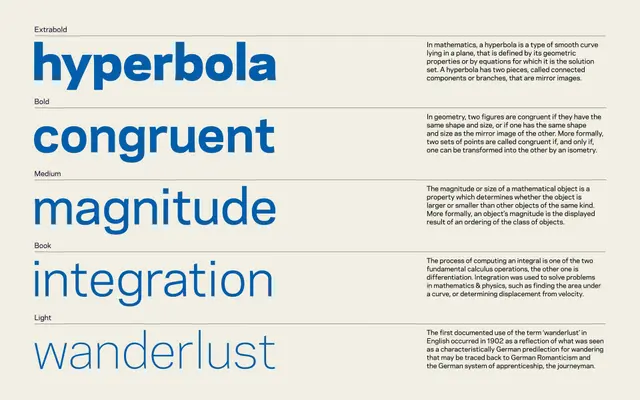
Polaris
A teutonic grotesque in the tradition of Helvetica and Univers, originally released in 2004 as part of the broader Galaxie family of families.
Originally released as Galaxie Polaris in 2004, the typeface was conceived as the reference point for a larger "family of families" including the script Cassiopeia and the serif Copernicus. It follows the unadorned modernist tradition of late-19th-century German grotesks and was an early multilingual design, with version 4 extending coverage to Cyrillic. Five weights from Light to Heavy are available, each with a matching italic, plus a condensed sub-family.
Described explicitly as a teutonic grotesk following Helvetica, Univers and Unica, with roots in late-19th-century German grotesks. Unadorned, modernist construction with no decorative elements.